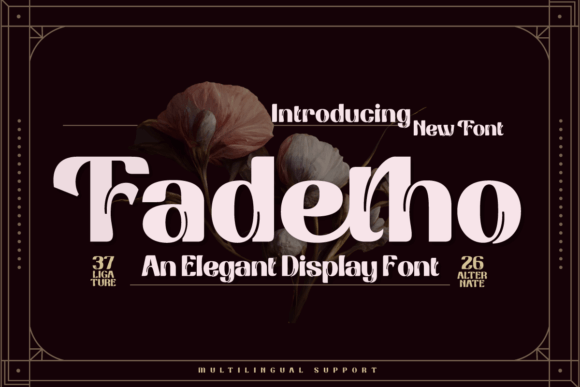
Choosing Fadetho for Relaxed and Elegant Editorial Design
It started with a blog header. I had just finished rewriting the content strategy for a lifestyle site I help edit—a calm space focused on slow living, seasonal recipes, and mindful homekeeping. The tone was warm and welcoming, but the visual identity felt stiff. The old header used a generic sans serif that looked more like a tech startup than a cozy kitchen table. I wanted something that felt like a soft linen napkin, not a plastic menu. That is when I began testing Fadetho, a display font that captivates and brings elegance to each of your projects. With a relaxed and elegant theme, Fadetho is the perfect solution for creating charming and creative layouts that invite people to stay and read.
Fadetho for Blog Headers and Lifestyle Magazine Covers
Fadetho belongs to the display category of fonts, which means it is purpose-built for headlines, titles, and short-form text that needs to command attention without shouting. Its letterforms carry a gentle rhythm—neither too rigid nor too playful—that makes it ideal for magazine covers, blog headers, and section titles in a digital publication. When I placed Fadetho at the top of my lifestyle blog’s homepage, the whole mood shifted. The wordmark suddenly felt handcrafted, like something pressed onto a letterpress card. For editorial designers who work with lifestyle, wellness, or food content, Fadetho offers a voice that is both polished and approachable. It does not compete with the photography or illustrations; it introduces them with poise.
Using Fadetho in Wedding Guides and Event Publications
Later that week, I was helping a friend lay out a wedding guide for a small destination elopement. She wanted the cover and chapter openers to feel romantic but not fussy. Fadetho turned out to be a perfect match for that brief. The font’s relaxed elegance allowed the title—“A Weekend in the Hills”—to sit beautifully beside a watercolor floral motif. In wedding publications, display fonts often risk looking either too formal or too casual. Fadetho walks the line gracefully. Its curves are generous without being exaggerated, and its spacing feels airy, giving each character room to breathe. For chapter titles, pull quotes, and even the couple’s names on the invitation page, this font added a layer of charm that felt intentional, not decorative for its own sake.
Fadetho for Ebook Titles and Newsletter Graphics
Beyond print-inspired projects, I tested Fadetho in digital formats. For a recipe ebook I was formatting, I used Fadetho for the main title on the cover and for each recipe category header. The cover title—“Harvest Table”—appeared in a warm terra-cotta shade, and the font’s rounded terminals and gentle contrast made it look appetizing and trustworthy. In newsletter graphics, Fadetho performed just as well. I set a seasonal welcome header inside a simple box with a soft background color. Subscribers responded immediately—more clicks on the featured article than in previous editions. While I cannot claim the font alone caused that lift, it certainly contributed to a more polished, cohesive visual identity that felt worth opening.
How Fadetho Supports Visual Hierarchy in Editorial Layouts
One of the biggest challenges in editorial design is guiding the reader’s eye from the most important element—the headline—down to the body copy and supporting details. Fadetho excels at creating a clear visual hierarchy because it has a distinct personality that says “look here first.” When I used it for a chapter opener in a coaching workbook, the contrast between the Fadetho title and the clean sans serif body text was immediate. The reader knew exactly where to start. For pull quotes and callouts, Fadetho added emphasis without needing extra weight or color. Its natural elegance does the work. In longer editorial projects like digital magazines or course PDFs, this kind of typographic clarity reduces cognitive load and keeps the reader engaged.
Pairing Fadetho with Readable Serif and Sans Serif Fonts
No display font works in isolation. For Fadetho to truly shine in a publication, it needs a thoughtful pairing. In my ebook, I paired Fadetho with a clean, warm serif font for the body copy. The serif’s quiet readability balanced Fadetho’s more expressive titles, creating a conversation between the two typefaces. For captions, bylines, and navigation elements, I used a neutral sans serif font that stayed out of the way. This combination allowed Fadetho to remain the star of the headlines while everything else supported the reading experience. If you are designing a blog, newsletter, or digital magazine, consider testing Fadetho with a serif that has moderate contrast or a sans serif with humanist proportions. The goal is harmony, not competition.
Fadetho in Printable Guides and Digital Products
Printable planners, worksheets, and guides are another natural home for Fadetho. I created a set of printable goal-setting pages using the font for the main headings and section labels. The relaxed, elegant feel of the text made the worksheets feel more like a beautiful journal than a corporate template. For sellers on creative marketplaces, this kind of typographic polish can elevate a product from simple to premium. Fadetho works particularly well in PDF exports and print materials because its letterforms retain their clarity at medium to large sizes. On screen, it reads well on mobile layouts too, as long as it is used for headlines rather than body text. For longer reading sections, always pair it with a highly readable companion font.
Fadetho for Pull Quotes and Decorative Accents in Editorial Layouts
One of my favorite uses for Fadetho turned out to be pull quotes. In a digital magazine feature about seasonal eating, I extracted a short, poetic line from the article and set it in Fadetho at a slightly larger size with a subtle color change. The quote became a visual anchor on the page, breaking up the columns of text and giving the reader a moment to pause. The font’s elegant character made the quote feel meaningful, not just decorative. For section dividers or chapter openers, I also experimented with using a single Fadetho letter as a drop cap. That small detail added a bespoke quality to the layout that readers often notice even if they cannot name why.
Fadetho has earned a permanent place in my editorial toolkit. It brings the elegance I want for titles and headers without the formality that can feel distant. For anyone designing content that needs to feel both inviting and polished—whether that is a blog, a magazine, a newsletter, or a printable guide—this display font offers a natural starting point. Try it on your next header, and see how the mood of your page begins to shift.